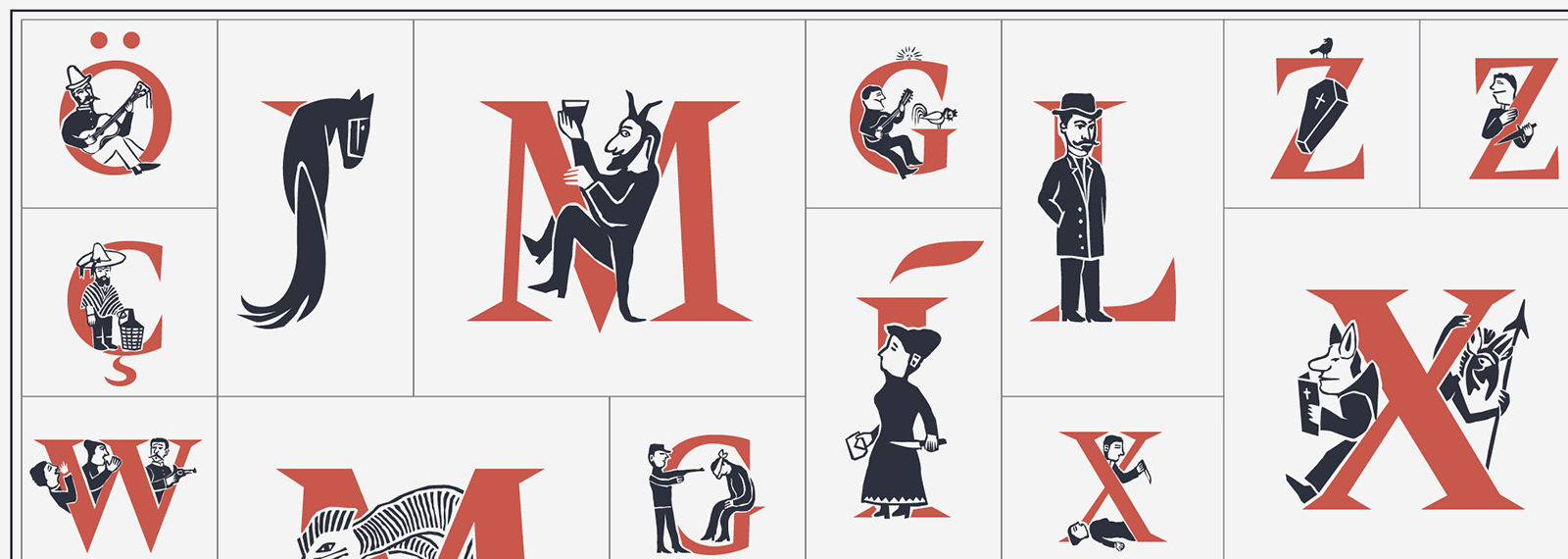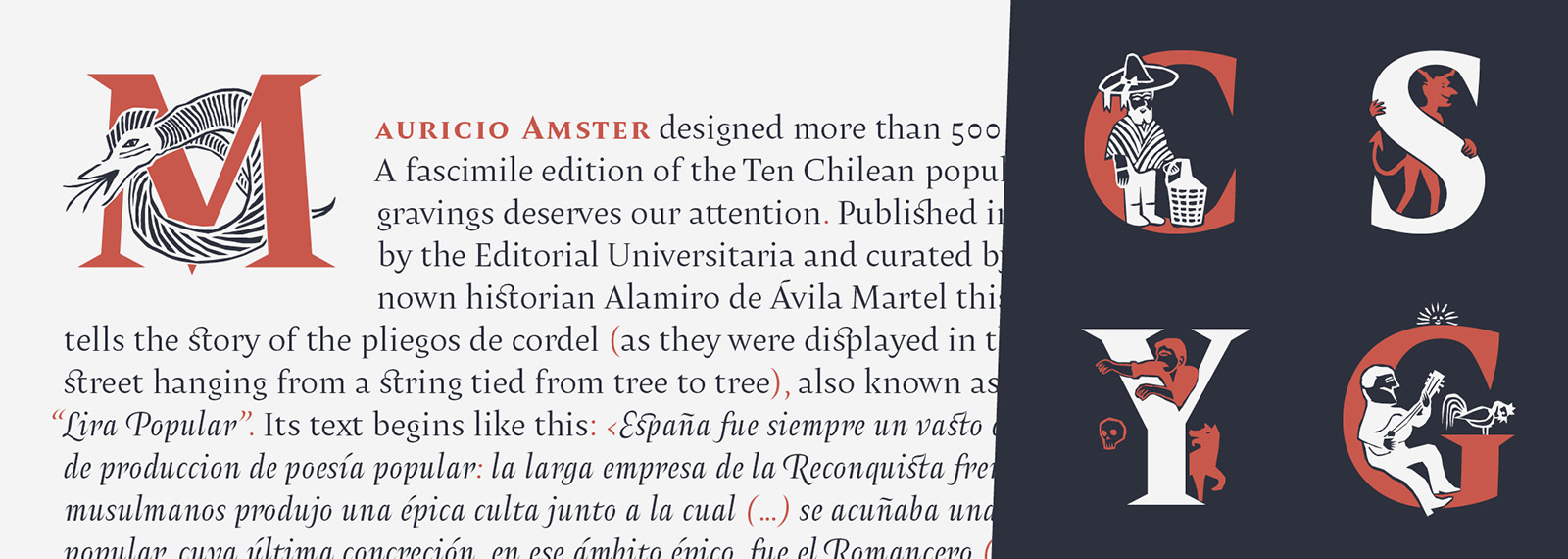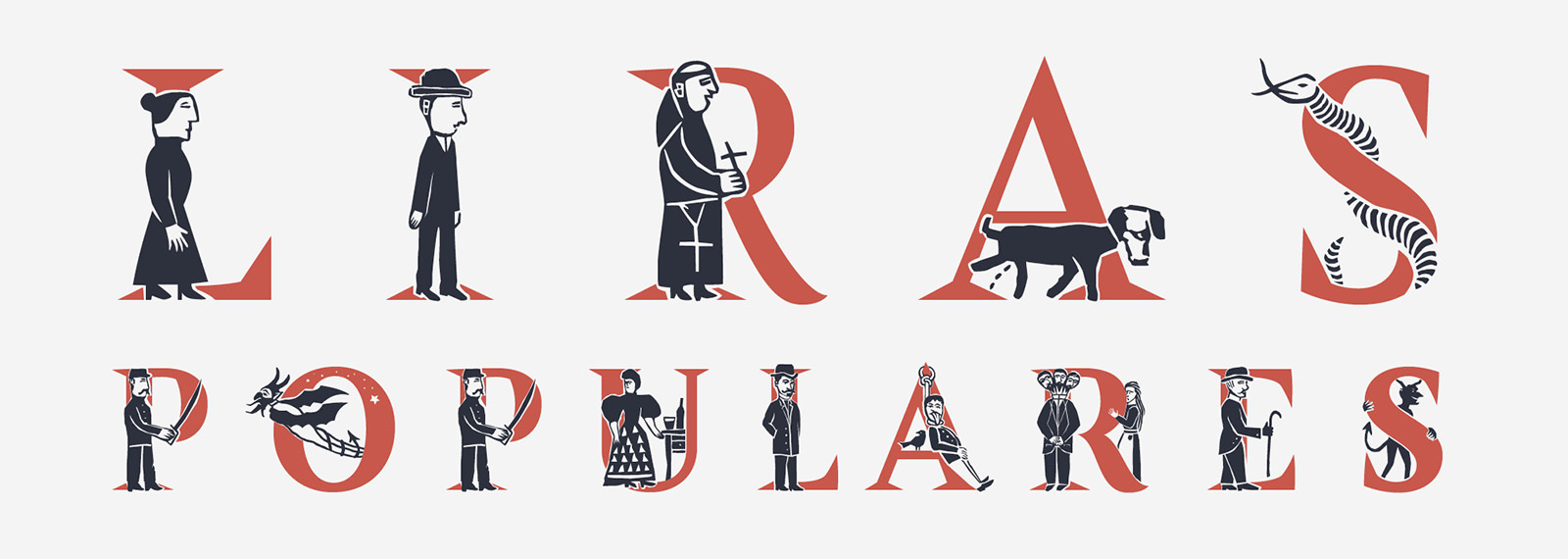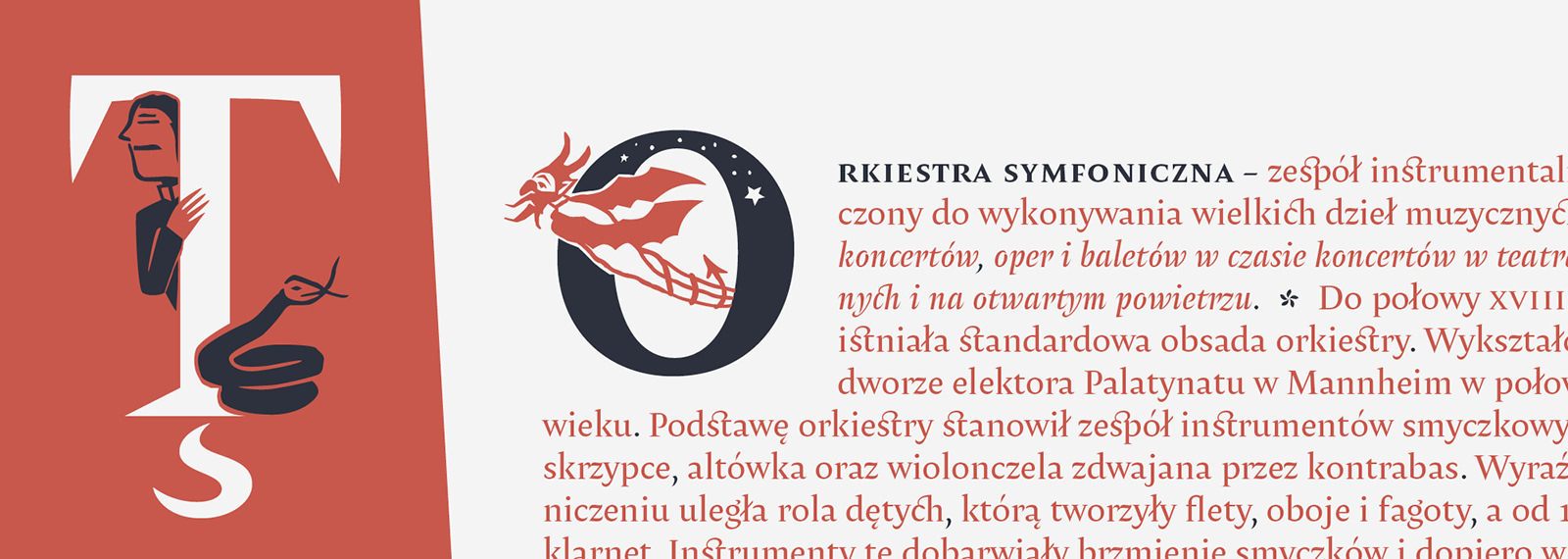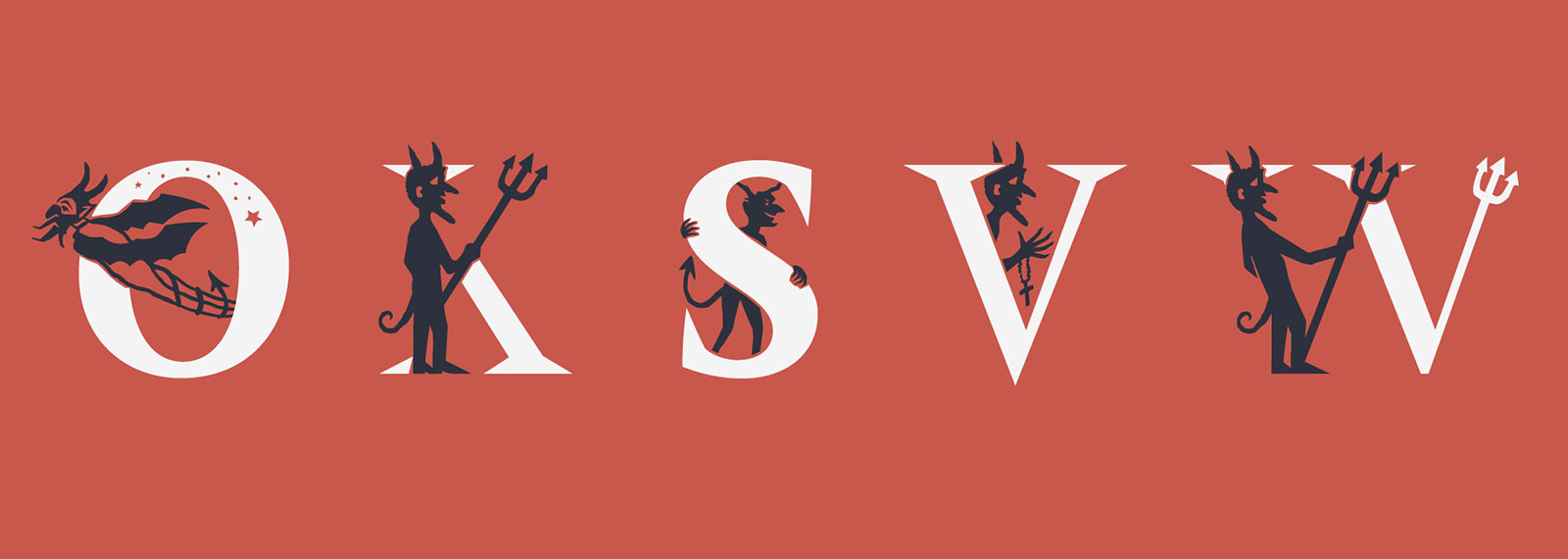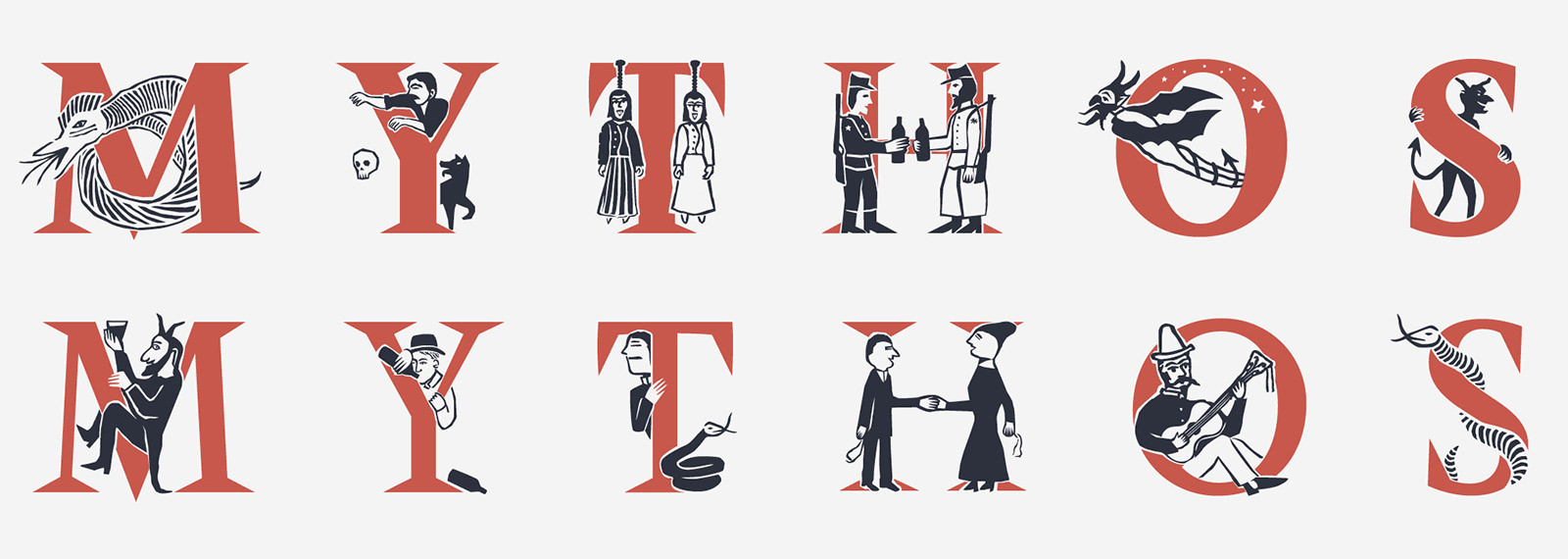
Amster Versal Iluminada
A collection of carefully illuminated initials
Inspired in vernacular printed news sheets that circulated in Chile by the end of 19th century, Amster Versal Iluminada is a set of carefully illuminated, multi-layered capitals that capture personages from natural and supranatural stories: Animals and farmers, priests and devils, citizen and drunks, victims and criminals, all dance together in this wondrous bestiary of letters, ideal to create poetic atmospheres, and stimulate readers' imagination.
Amster Versal Iluminada
Designed by Francisco Gálvez Pizarro.
Programmed by Guido Ferreyra.